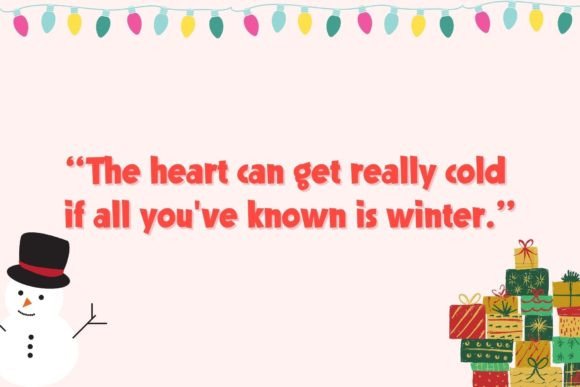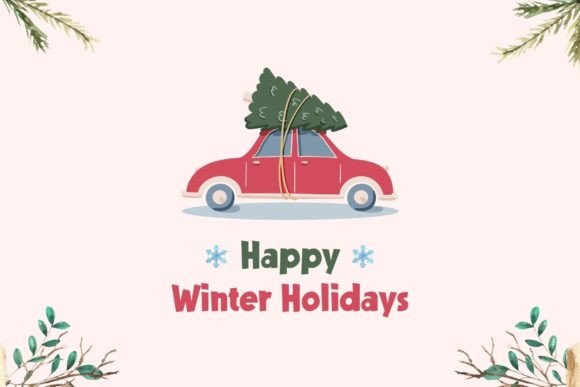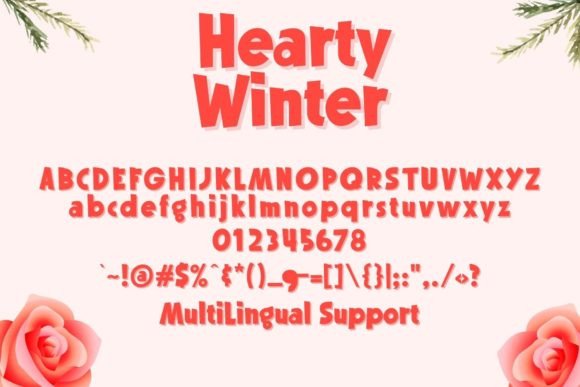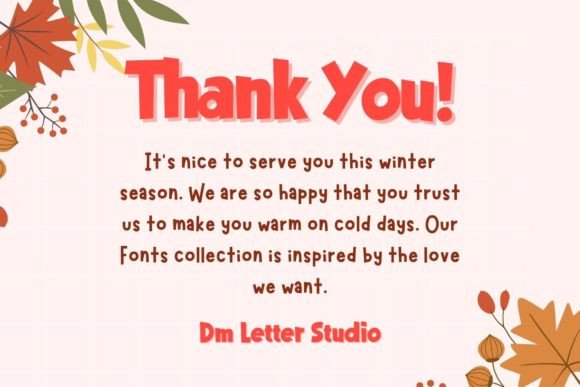
Hearty Winter Font: A Fun Display Font for Winter Wonderland
As the winter season approaches, designers and crafters are on the lookout for fonts that can add a touch of warmth and playfulness to their projects. Hearty Winter Font is a fun display font that embodies playfulness and authenticity, making it the perfect choice for any children’s activity or school project. In this article, we’ll dive into the features and benefits of Hearty Winter Font and explore how you can use it to create engaging and festive designs.
What is Hearty Winter Font?
Hearty Winter Font is a display font designed to capture the spirit of winter fun and adventure. With its bold and playful lettering, this font is perfect for creating eye-catching titles, headings, and captions for your winter-themed projects. Whether you’re working on a children’s activity sheet, a school project, or a festive craft, Hearty Winter Font is sure to add a touch of whimsy and excitement.
Key Features of Hearty Winter Font
- Playful and Authentic Design: Hearty Winter Font features a unique and authentic design that exudes playfulness and fun. Its bold and rounded lettering makes it perfect for creating eye-catching titles and headings.
- Perfect for Children’s Projects: This font is specifically designed for use in children’s activities and school projects. Its fun and engaging design makes it ideal for capturing the attention of young learners.
- Easy to Read: Despite its bold and playful design, Hearty Winter Font is easy to read, making it perfect for use in titles, headings, and captions.
- Versatile: Hearty Winter Font can be used in a variety of projects, from children’s activity sheets to school projects, crafts, and more.
Benefits of Using Hearty Winter Font
So why choose Hearty Winter Font for your winter-themed projects? Here are just a few benefits of using this fun display font:
- Adds a Touch of Whimsy: Hearty Winter Font adds a touch of whimsy and fun to your projects, making them more engaging and exciting for young learners.
- Saves Time: With Hearty Winter Font, you can create professional-looking titles and headings in minutes, saving you time and effort.
- Increases Engagement: The playful and authentic design of Hearty Winter Font is sure to capture the attention of young learners, increasing engagement and participation.
How to Use Hearty Winter Font
Using Hearty Winter Font is easy! Here are a few tips to get you started:
- Choose the Right Size: Experiment with different font sizes to find the perfect fit for your project.
- Pair with Other Fonts: Hearty Winter Font pairs well with other fonts, so feel free to experiment with different combinations.
- Use in Titles and Headings: Hearty Winter Font is perfect for use in titles and headings, but don’t be afraid to use it in captions and body text too.
Project Ideas Using Hearty Winter Font
Hearty Winter Font is perfect for a variety of winter-themed projects, including:
- Children’s Activity Sheets: Create fun and engaging activity sheets for kids, complete with Hearty Winter Font titles and headings.
- School Projects: Use Hearty Winter Font to add a touch of whimsy and fun to school projects, such as presentations, posters, and reports.
- Crafts: Hearty Winter Font is perfect for use in craft projects, such as handmade cards, gift tags, and decorations.
Hearty Winter Font is a fun display font that embodies playfulness and authenticity, making it the perfect choice for any children’s activity or school project. With its bold and playful design, easy readability, and versatility, Hearty Winter Font is sure to add a touch of whimsy and excitement to your winter-themed projects. So why wait? Download Hearty Winter Font today and start creating engaging and festive designs that will delight young learners!